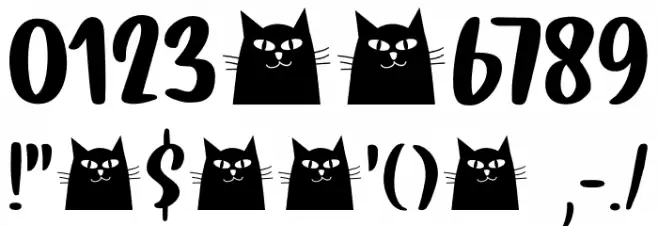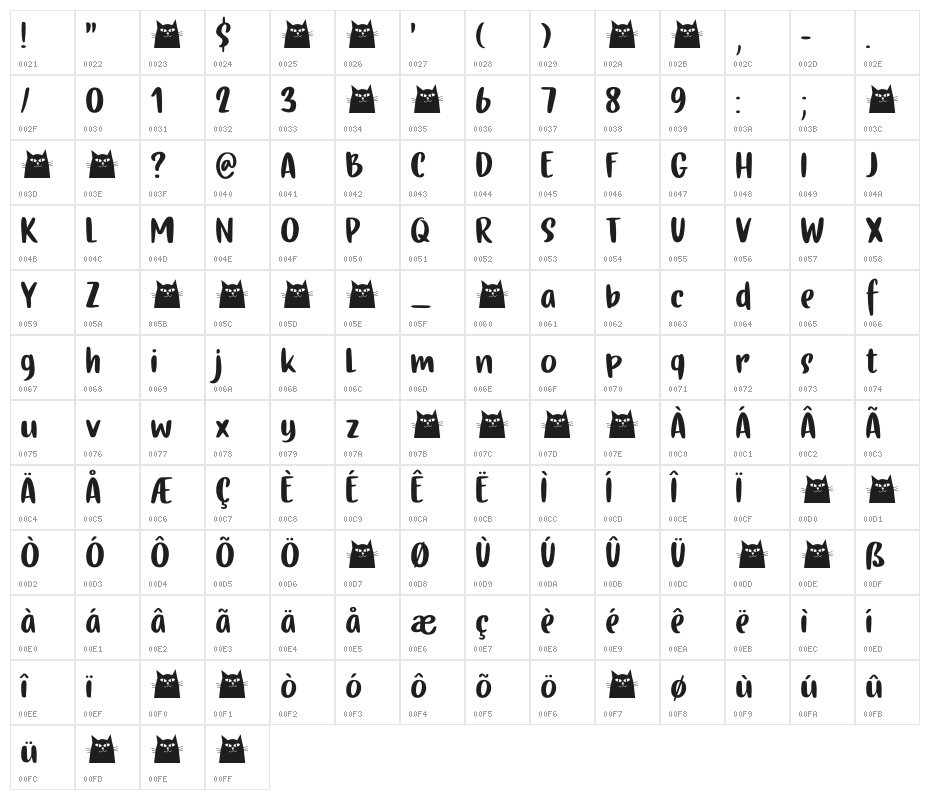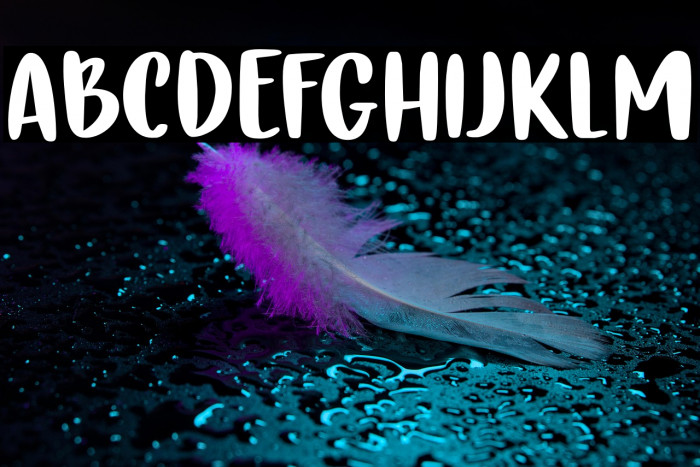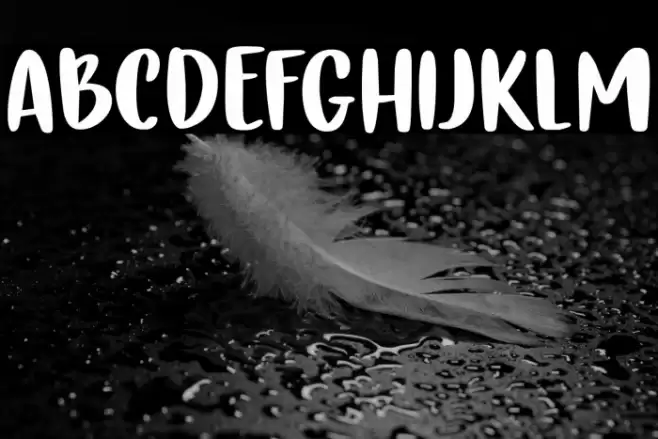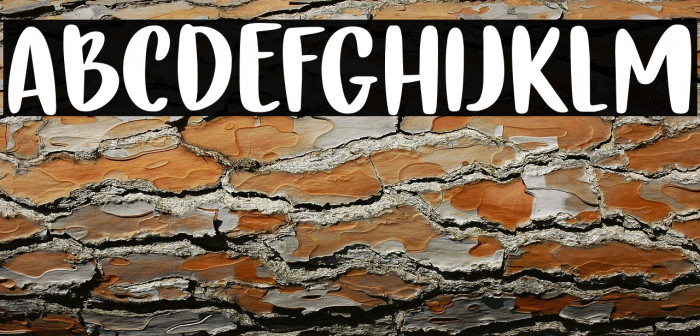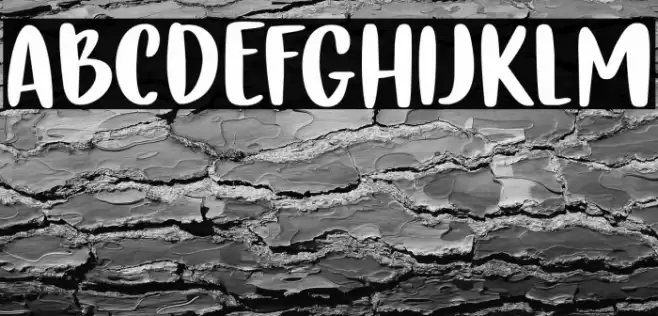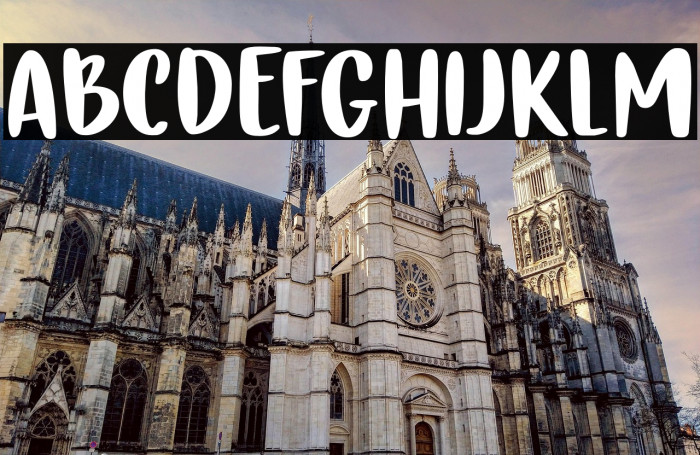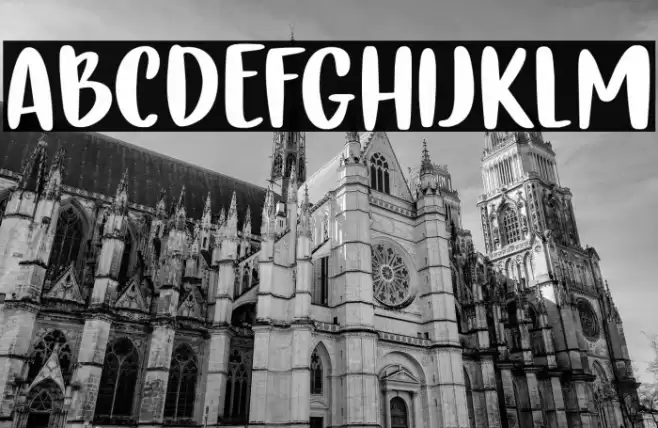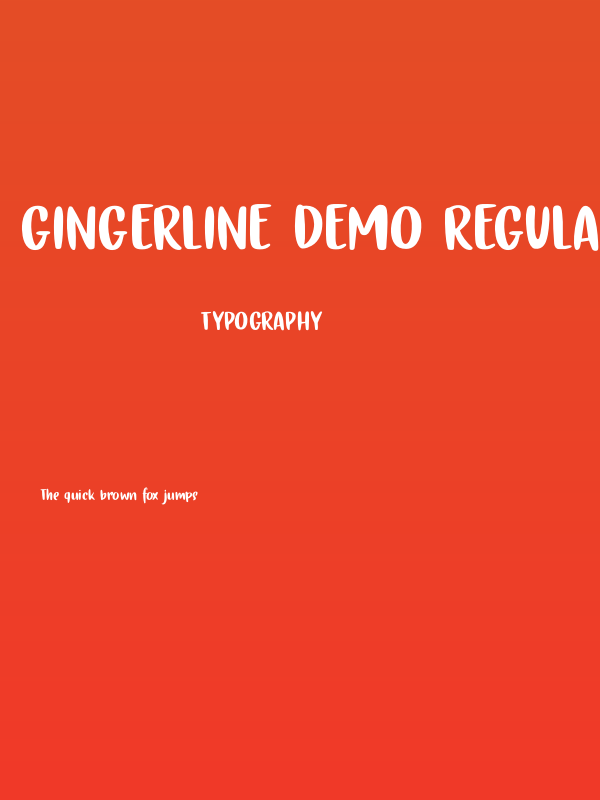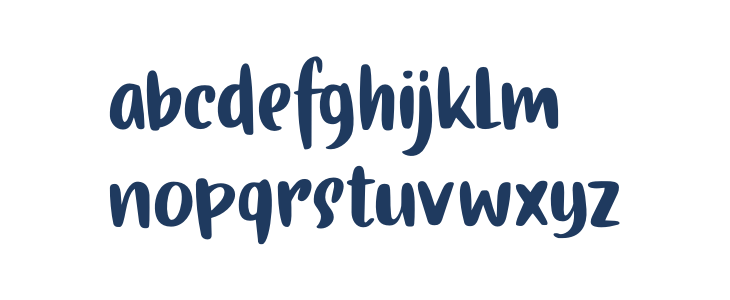
Gingerline DEMO Regular Font
Gingerline DEMO Regular Description
This playful and bold font features a handwritten style with a whimsical touch. The characters are rounded and slightly irregular, giving it a friendly and approachable feel. The uppercase letters are bold and prominent, while the lowercase letters maintain a consistent flow with a slightly playful bounce. The numbers are uniquely styled, adding to the font's charm. Special characters include a series of cat illustrations, adding a decorative and fun element. This font is perfect for projects that require a personal and creative touch.